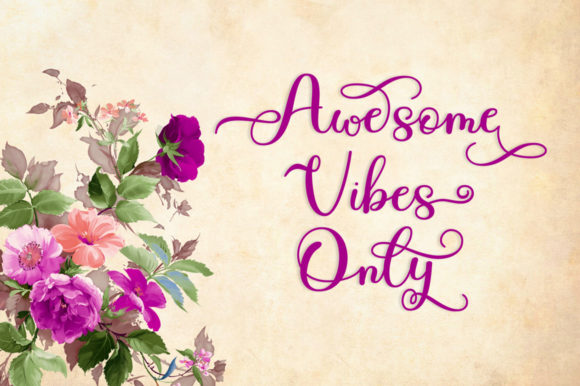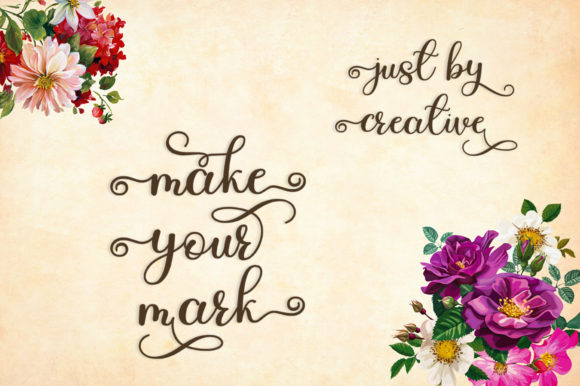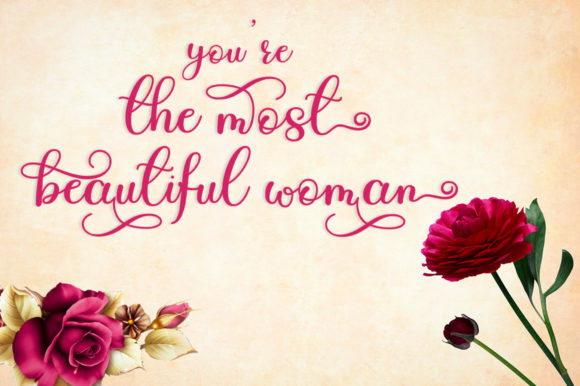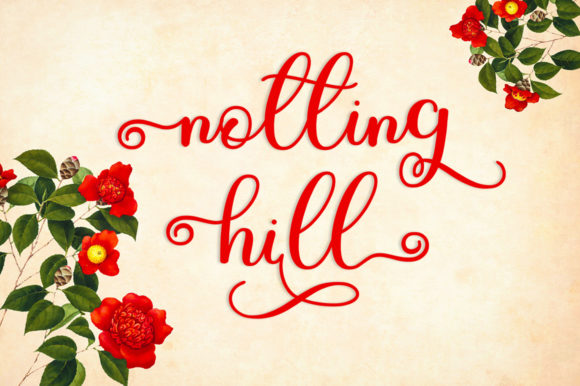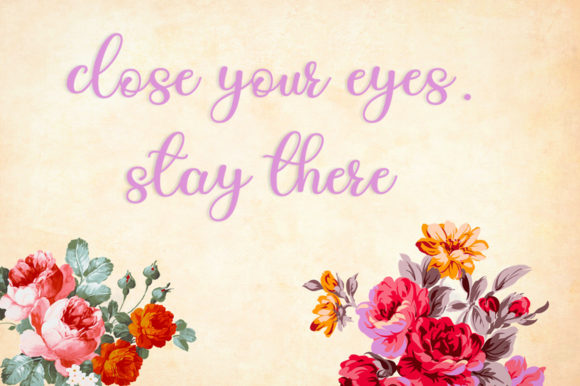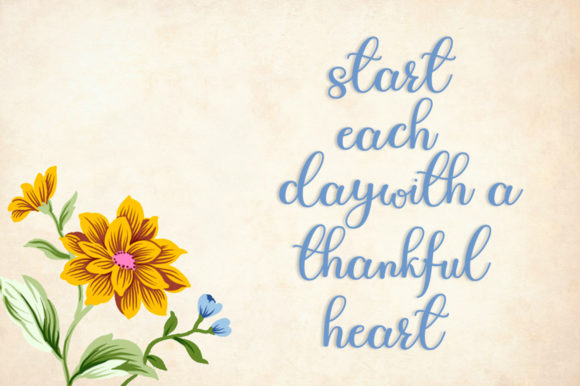
Austos Font
About Austos Font
Austos is a modern calligraphy font. Its characters dance along the baseline and give it an elegant feel.
It can be used for various purposes such as logos, wedding invitations, headings, t-shirts, letterheads, signage, labels, news, posters, badges, and much more!